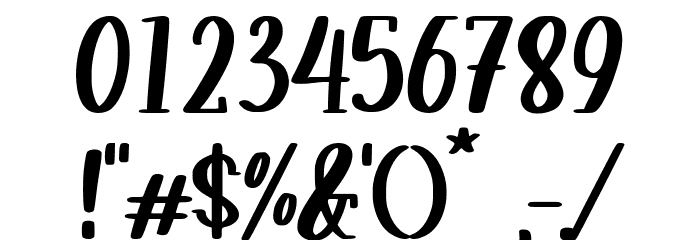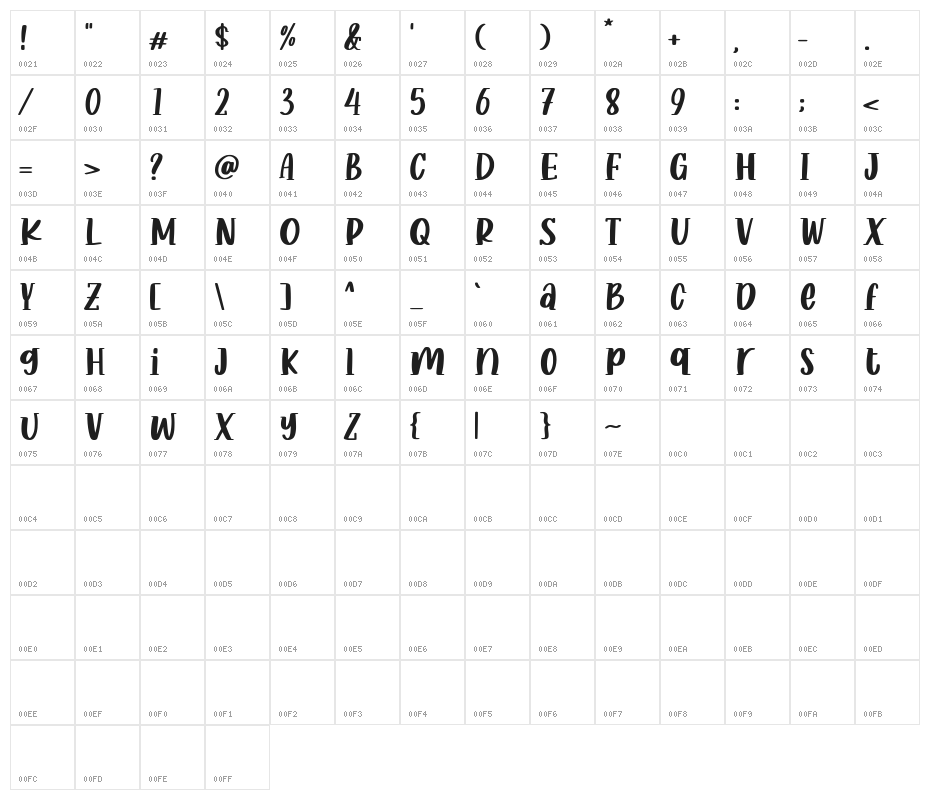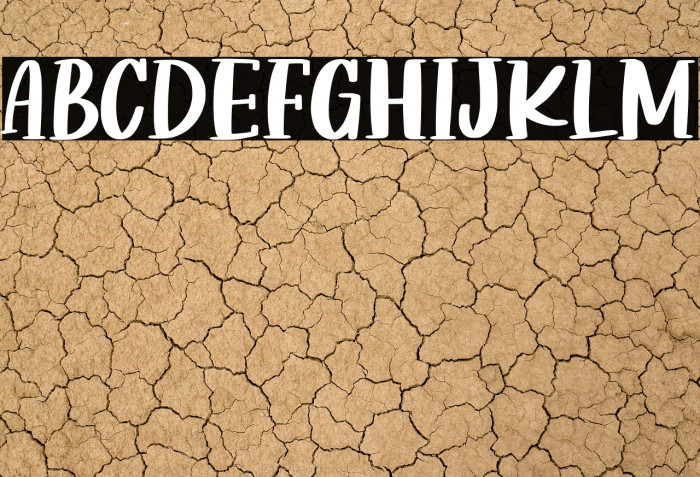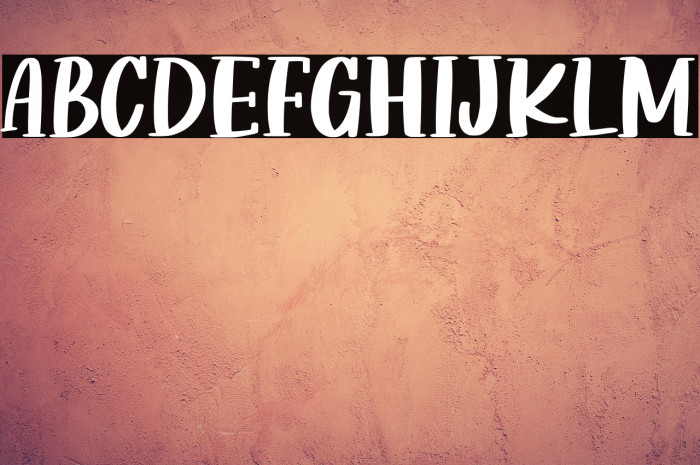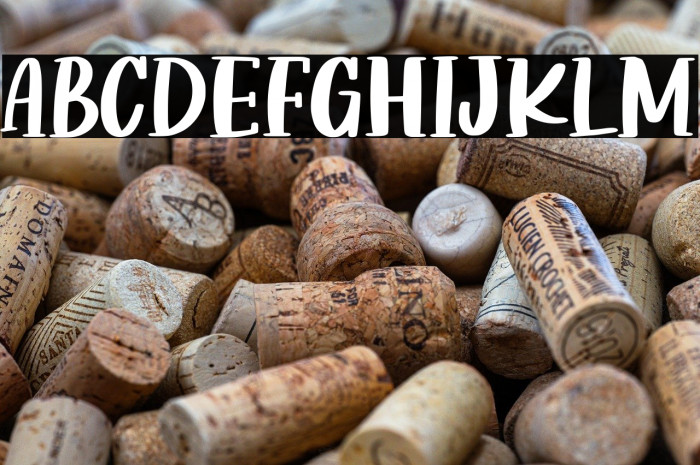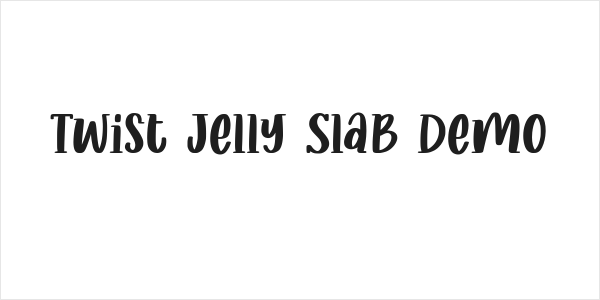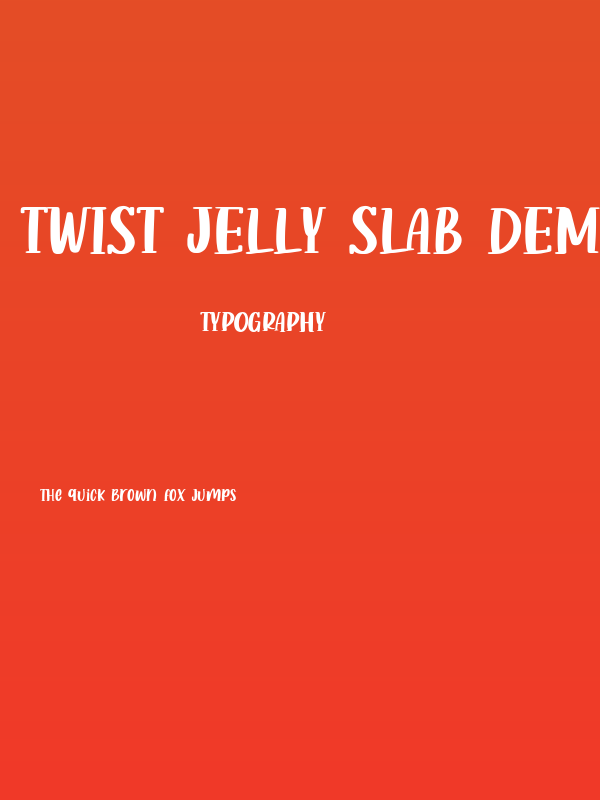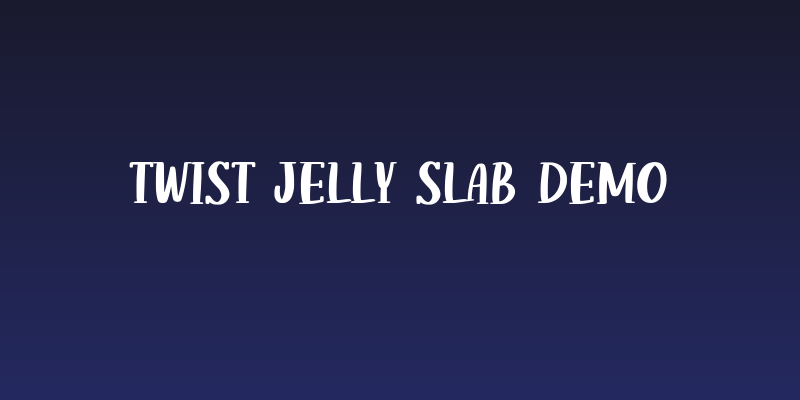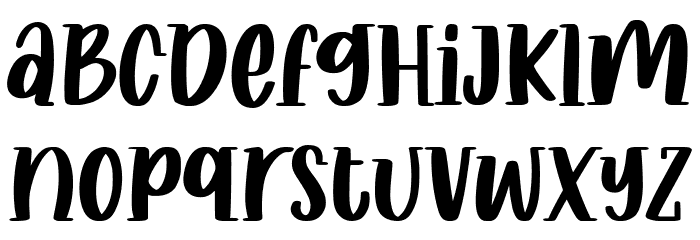
Twist Jelly Slab Demo Font
Twist Jelly Slab Demo Description
This font features a playful and bold design with a unique twist in its character shapes. The uppercase and lowercase letters exhibit a whimsical style, with exaggerated curves and a slightly uneven baseline that adds to its charm. The numbers and special characters maintain this playful aesthetic, making it suitable for creative and informal projects. The strokes are thick, providing a strong presence, while the overall design remains approachable and fun.